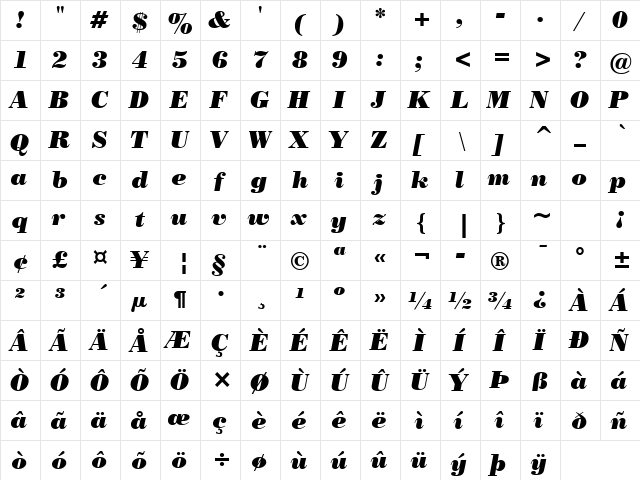
PosterBodoni It BT Italic Font Preview
PosterBodoni It BT Italic
Design Context for PosterBodoni It BT Typeface
PosterBodoni It BT takes a measured approach to typography — its balanced proportions and neutral character make it a reliable workhorse for both digital and print work. The dynamic lean of this cut emphasises speed and emphasis in any layout.